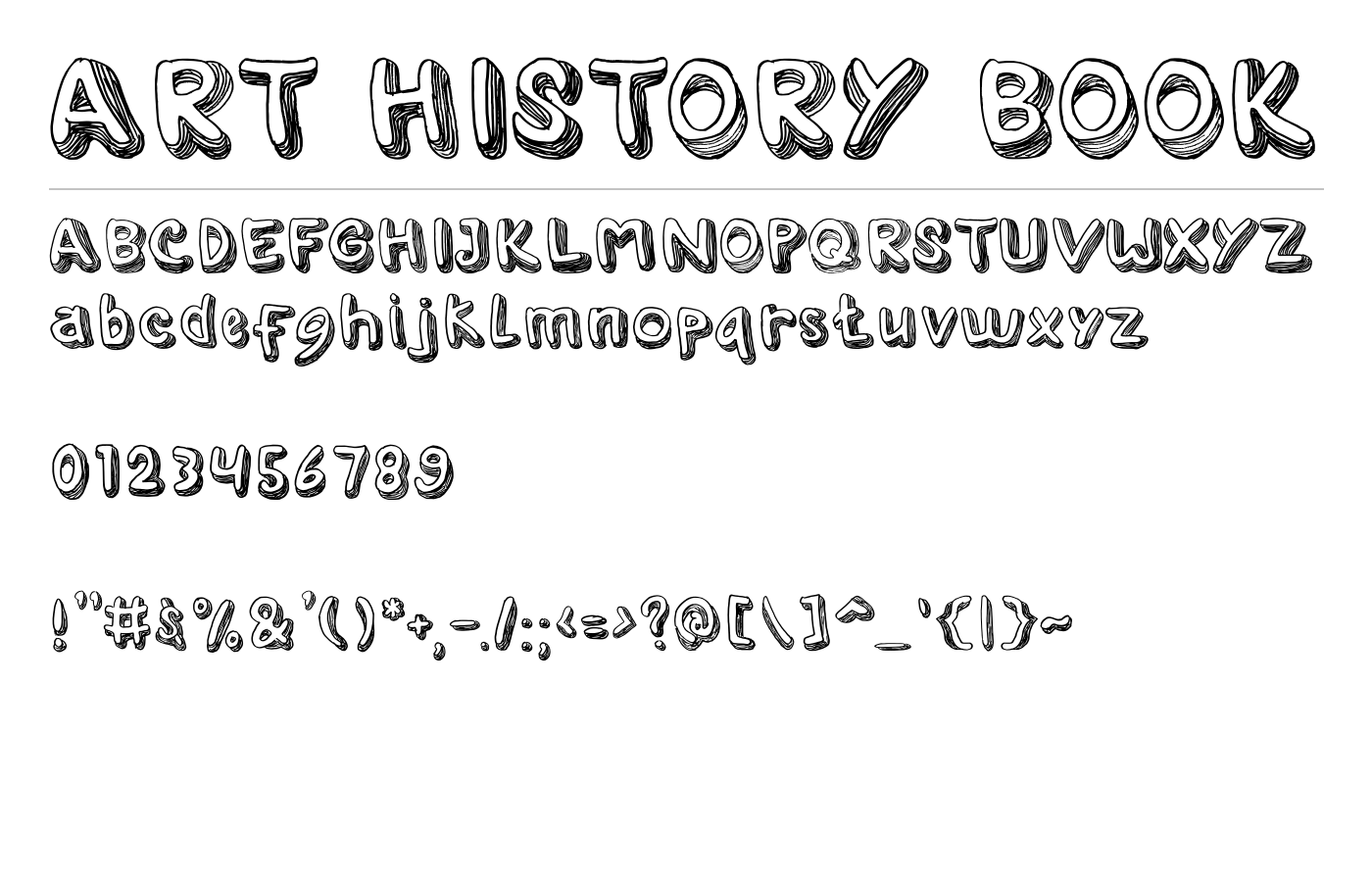
Art History Book is a playful, hand-drawn sans serif font with a bold, chunky weight and a whimsical, textured outline that gives it a three-dimensional, sketch-like feel. Its irregular shapes and casual style make it perfect for creative, artistic projects, packaging, or headlines where a fun, informal tone is desired. This font adds personality and charm to designs that want to stand out with a lively, handcrafted look.
ART HISTORY BOOK Font
About ART HISTORY BOOK Font